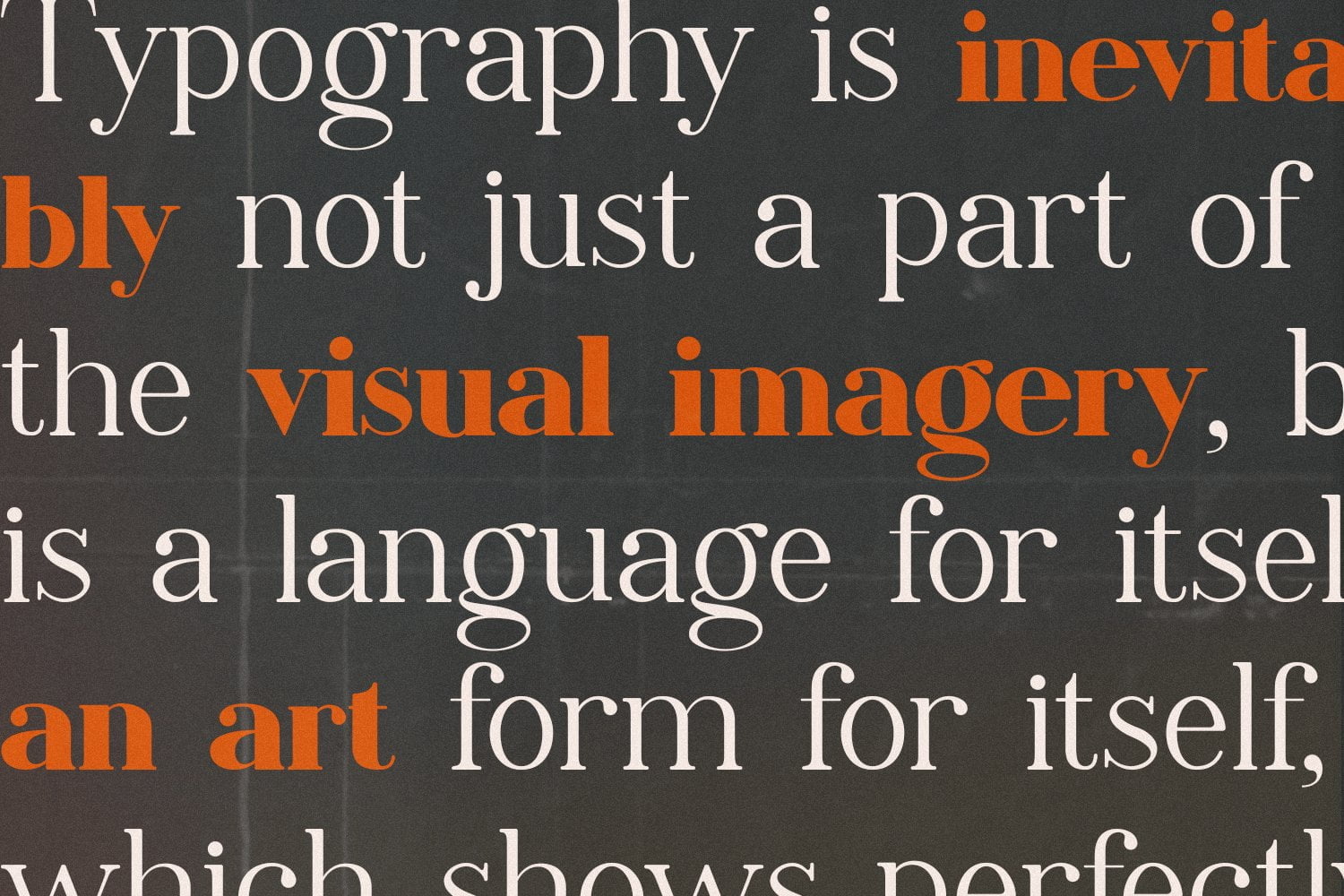
Serif or Sans-Serif: Which Font is Best for Your Website?
When it comes to designing a website, one of the most critical decisions you’ll have to make is choosing the right font. There are numerous options to choose from, but the two main font categories are Serif and Sans-Serif. Before making your choice, you’ll have to consider several factors, including readability, legibility, and aesthetics. This post will explore the differences between Serif and Sans-Serif fonts and help you determine which is best for your website.
Serif vs. Sans-Serif Fonts
Fonts are categorized into Serif and Sans-Serif based on the presence or absence of small lines (or “serifs”) at the end of each character. Serif fonts have these small lines, while Sans-Serif fonts do not. Serif fonts are generally considered more traditional and formal, while Sans-Serif fonts are seen as modern and informal.
Readability and Legibility
One of the most crucial factors to consider when choosing a font for your website is readability and legibility. Readability refers to how easy it is to read the text, while legibility refers to how easy it is to distinguish between letters. Serif fonts are generally more readable for printed materials, while Sans-Serif fonts are more legible on screens. However, this isn’t a hard and fast rule, and it ultimately depends on the font you choose.
When choosing a font, it’s essential to consider how it will look on different screen sizes and resolutions. Sans-Serif fonts are generally considered more legible on low-resolution screens, while Serif fonts are more readable on high-resolution screens.
Aesthetics
While readability and legibility are essential, the aesthetics of a font are also crucial. The font you choose should complement the overall design of your website and convey the tone and message you want to convey. Serif fonts are generally seen as more traditional, formal, and elegant, while Sans-Serif fonts are perceived as more modern, sleek, and informal.
Ultimately, the choice between Serif and Sans-Serif fonts depends on the overall design and tone you want to convey. A traditional or formal website may benefit from a Serif font, while a modern or informal site may benefit from a Sans-Serif font.
In Conclusion
Choosing the right font for your website is crucial for readability, legibility, and aesthetics. Serif fonts are more traditional and formal, while Sans-Serif fonts are seen as more modern and informal. The choice ultimately depends on the overall design and tone you want to convey. Consider the readability and legibility of the font, how it looks on different screen sizes, and how it complements your website’s overall design. By taking these factors into account, you can choose the perfect font for your website.